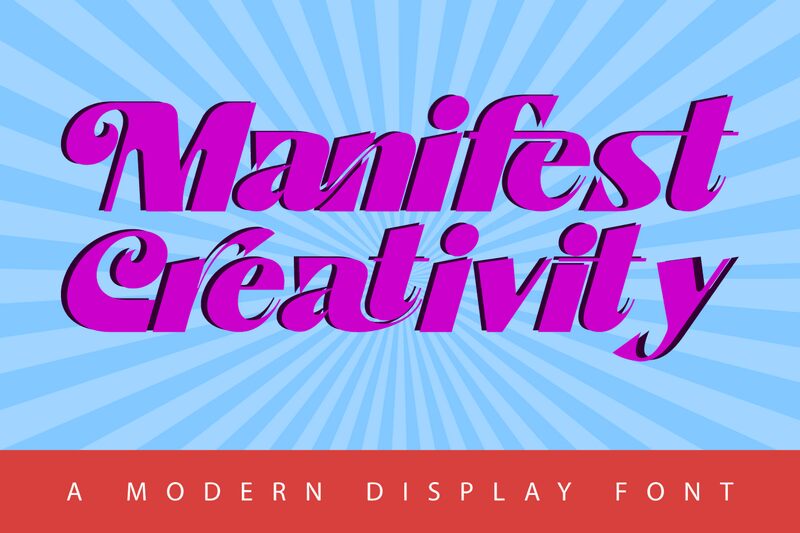
Manifest Creativity font family by 177Studio is a free groovy font family consisting of 2 font styles. The dynamic, expressive, and highly energetic design is inspired by retro design and made suitable for contemporary applications. Use it in modern branding where a notable typographic flair is the desired impact of the design project.
Visually, this font is striking, calling out the attention of any audience and leaving a memorable aftertaste.
Displaying highly energetic visuals, the fonts are most suitable for packaging design and branding. Incorporate a touch of energy into colorful posters, eye-catching social media posts, as well as engaging flyers and brochures. Use it in exhibition and museum design, signage, or poster design. Decorate t-shirts, book covers, or magazine spreads of all kind.